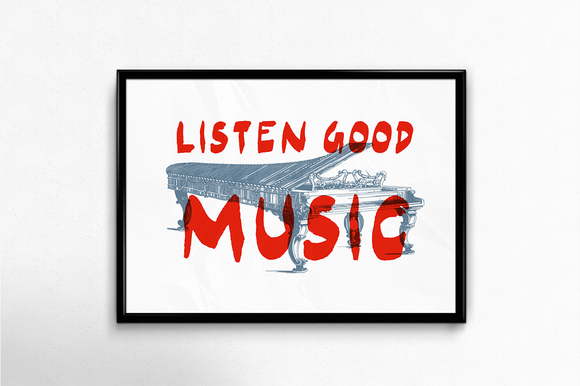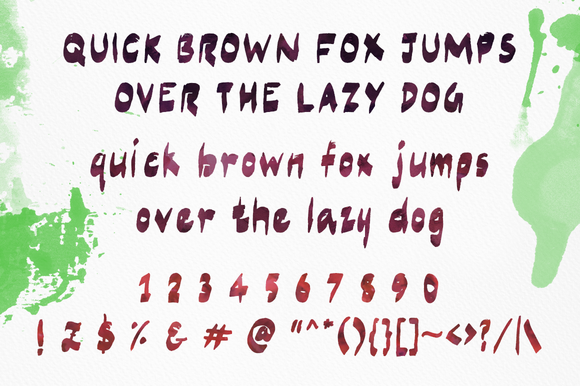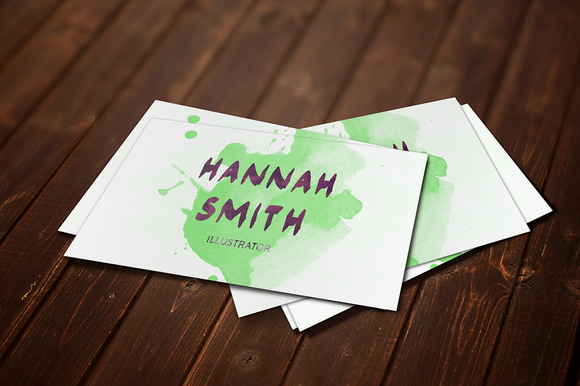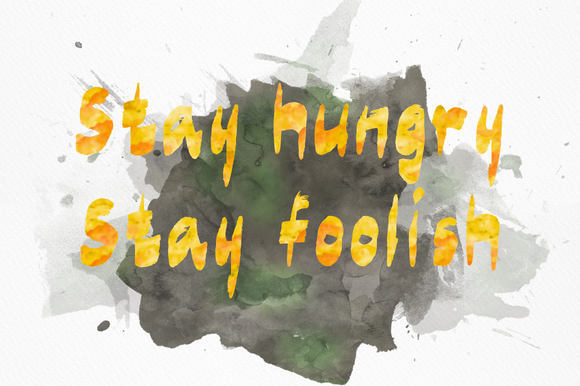
Marziona Pro Font
Marziona is a carefully hand crafted display font with the stylish and modern letterforms. It comes with uppercase, lowercase, numerals, punctuations, and more,.
You can use it for your branding, posters, business card, invitations, labels, posters, comic, log sheet, letters and anything under the sun that you want to make it as awesome piece of typographical design. Marziona fits all places and sync very well with your designs in no time. So why wait, go and grab this font, please.